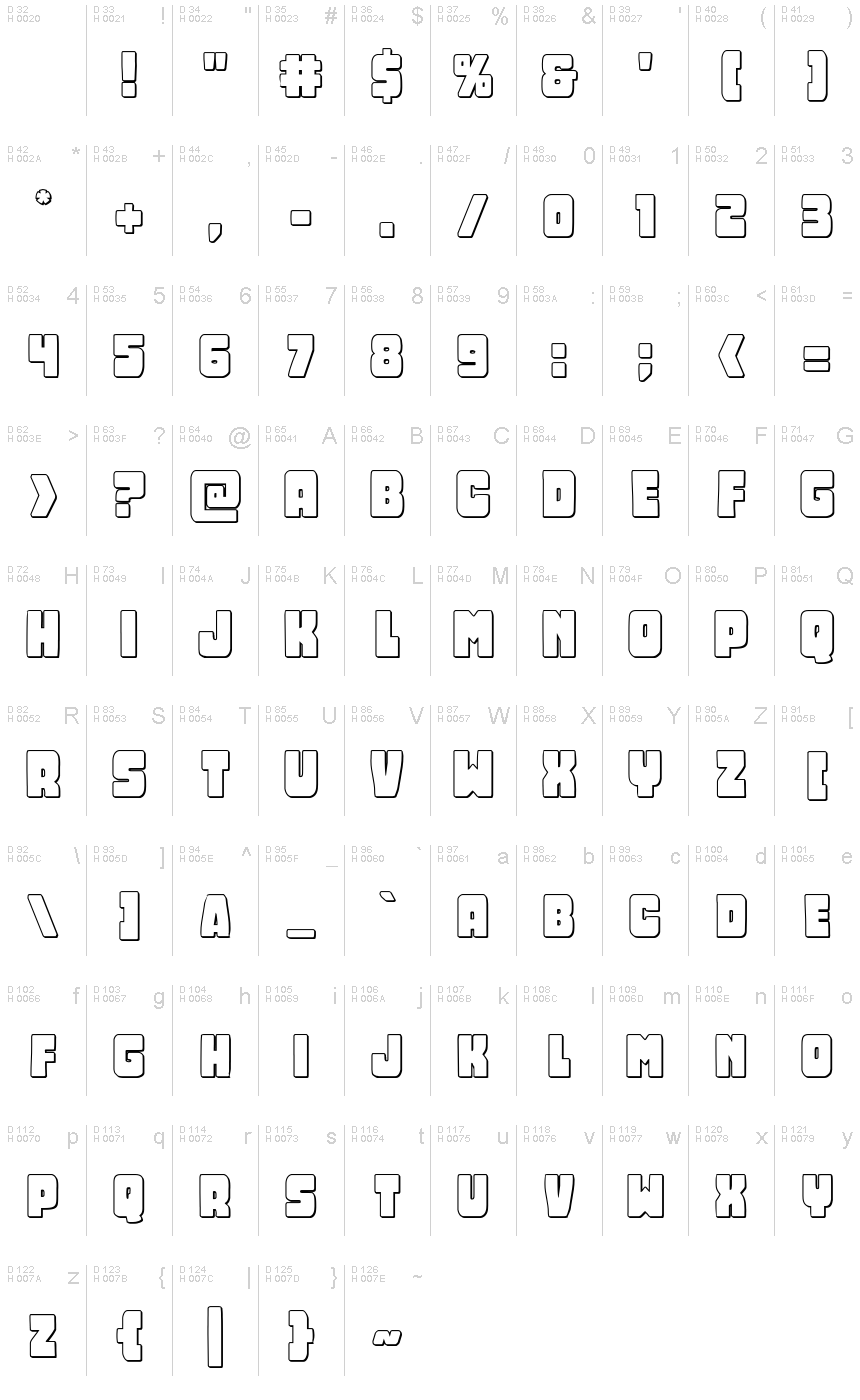
Opus Mundi 3D
Opus Mundi 3D is a captivating display font that commands attention with its bold, dimensional presence. Designed by Daniel Zadorozny, this condensed typeface exudes a sense of grandeur and modernism. The three-dimensional effect, achieved through subtle shadowing, lends depth and an architectural quality to the letterforms. Opus Mundi 3D's distinctive aesthetic makes it well-suited for eye-catching headlines, impactful branding, and dynamic poster designs.
Its versatility extends to a range of applications, from editorial layouts to packaging and digital interfaces, where its strong visual impact can elevate the overall design.